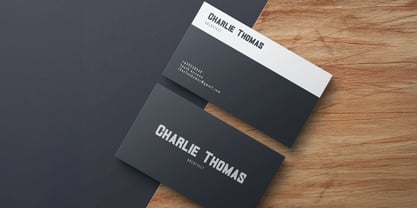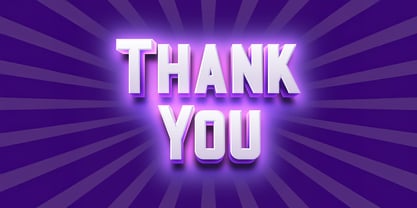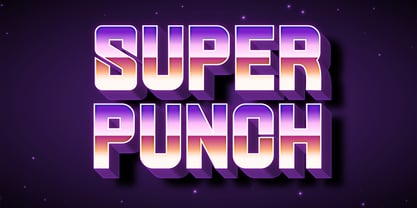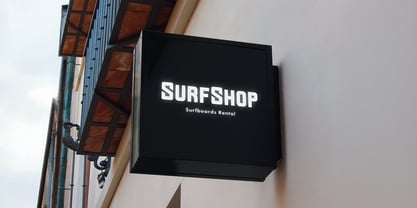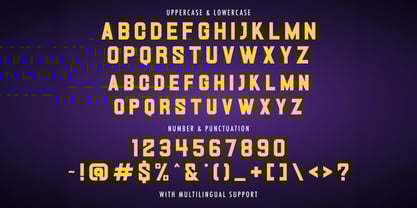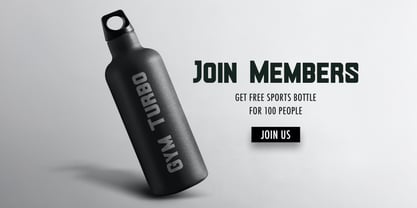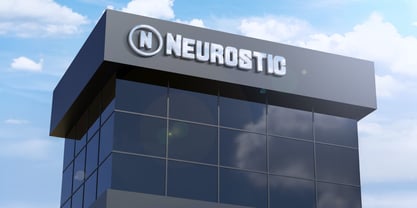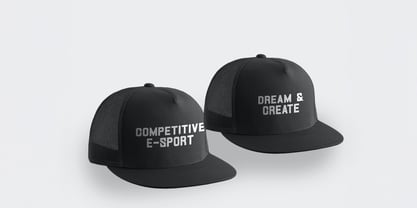
The Super Punch Font Family was designed by Virgiawan Listanto and published by Stringlabs Creative Studio. Super Punch contains 1 styles. More about this family
Unleash impact and innovation with SUPER PUNCH, a futuristic sans font built for bold headlines, cutting-edge tech designs, and next-gen branding. With its sharp angles, solid structure, and sci-fi edge, this font packs a punch in every letterform. Perfect for gaming titles, esport logos, posters, or anything that demands attention and intensity, SUPER PUNCH brings a dynamic, forward-looking vibe to your creative projects.
Designers: Virgiawan Listanto
Foundry: Stringlabs Creative Studio
Super Punch